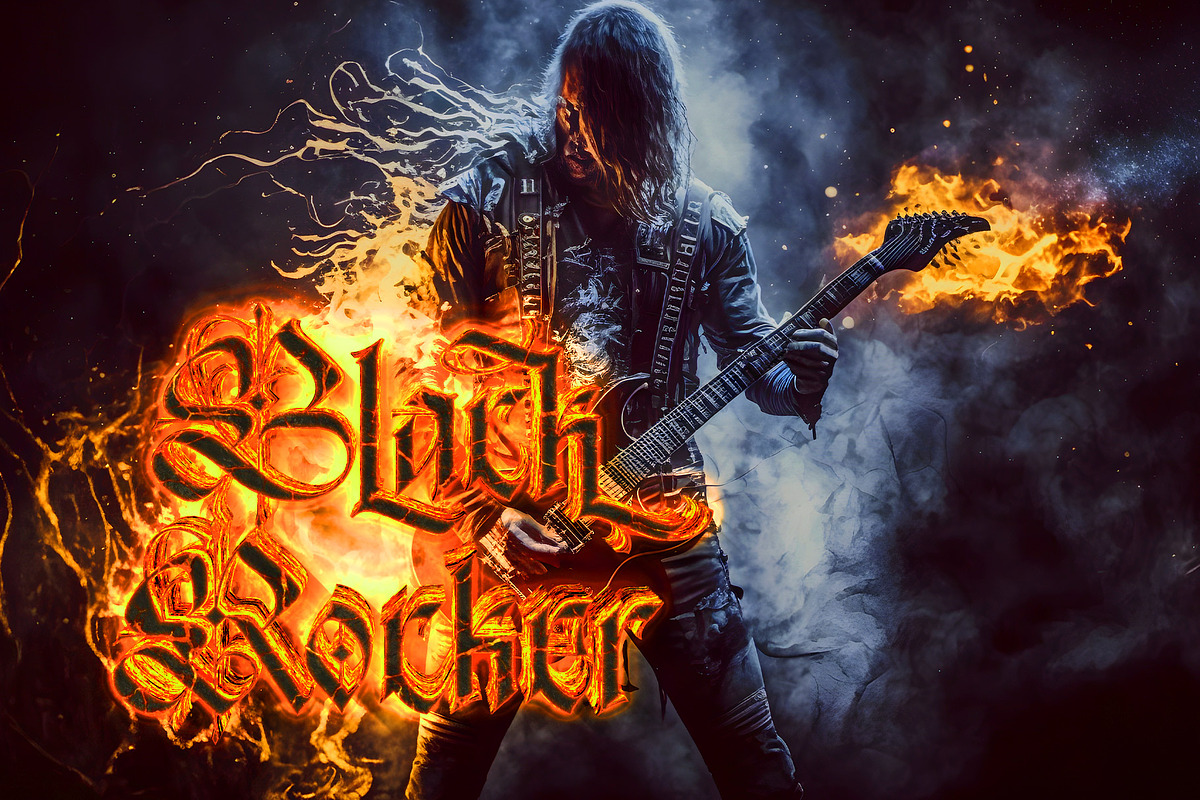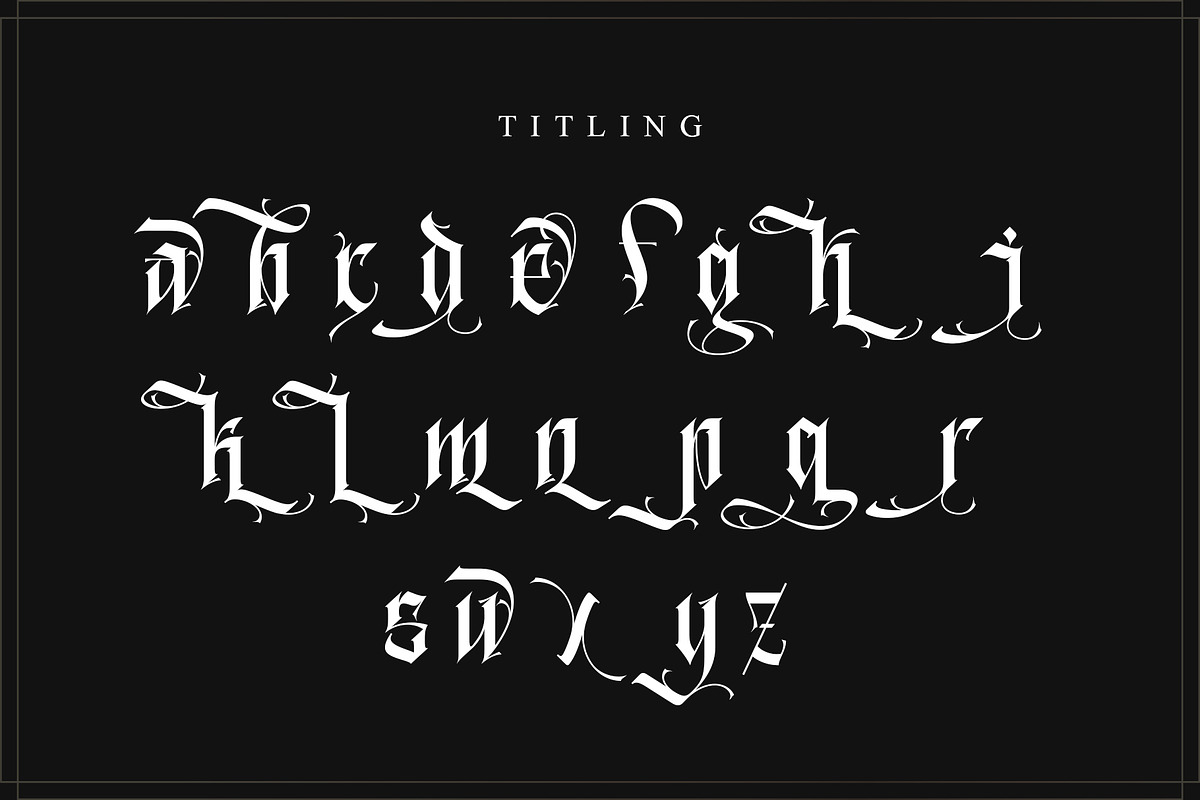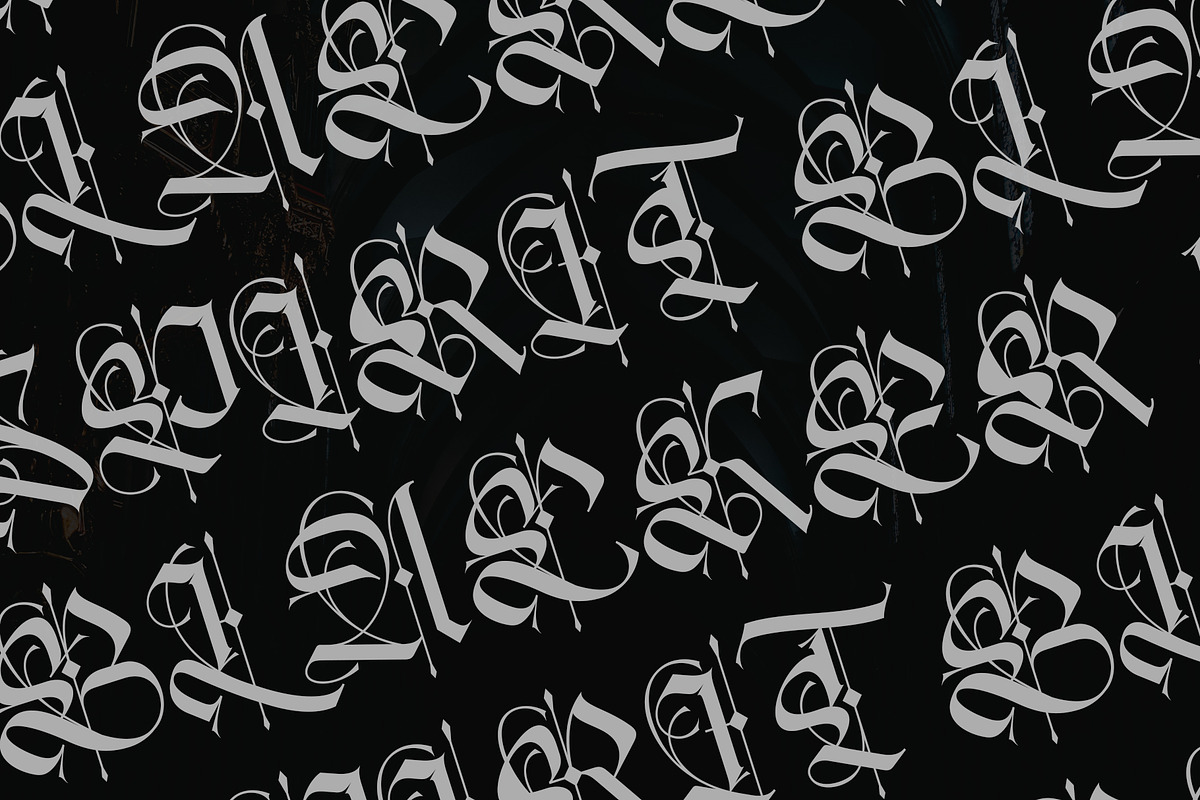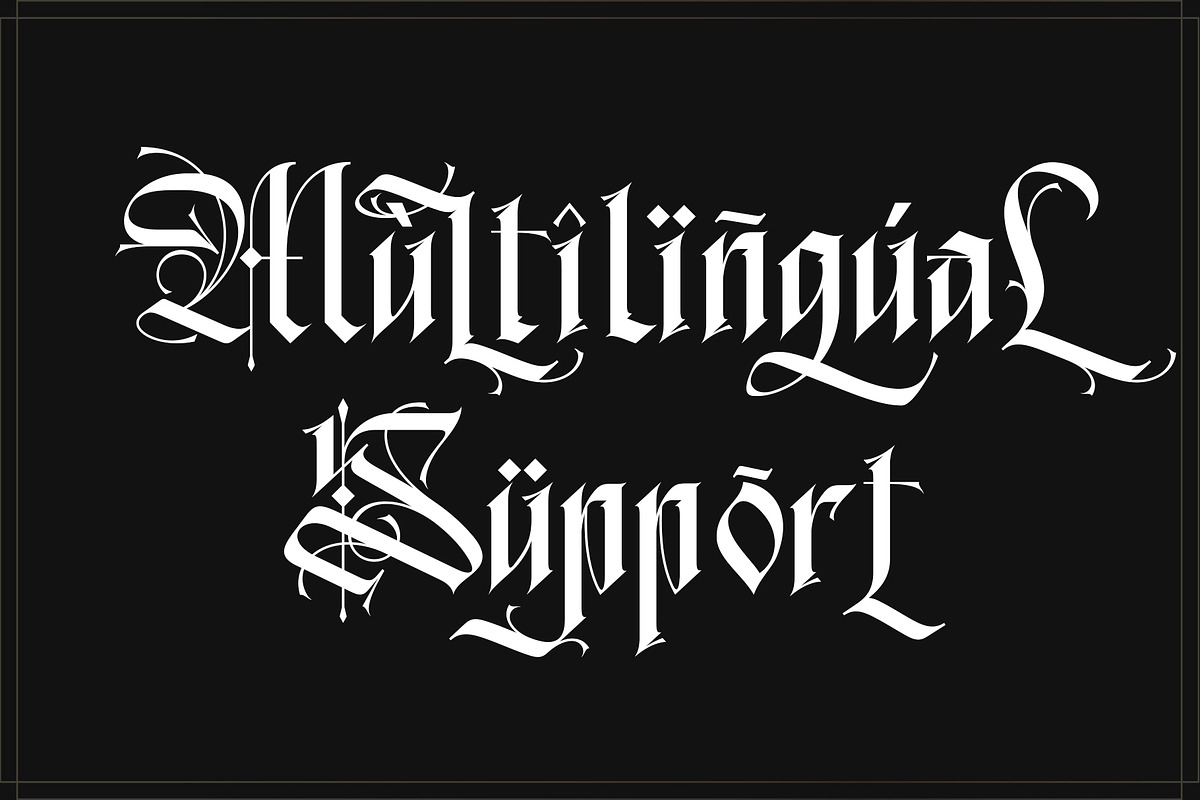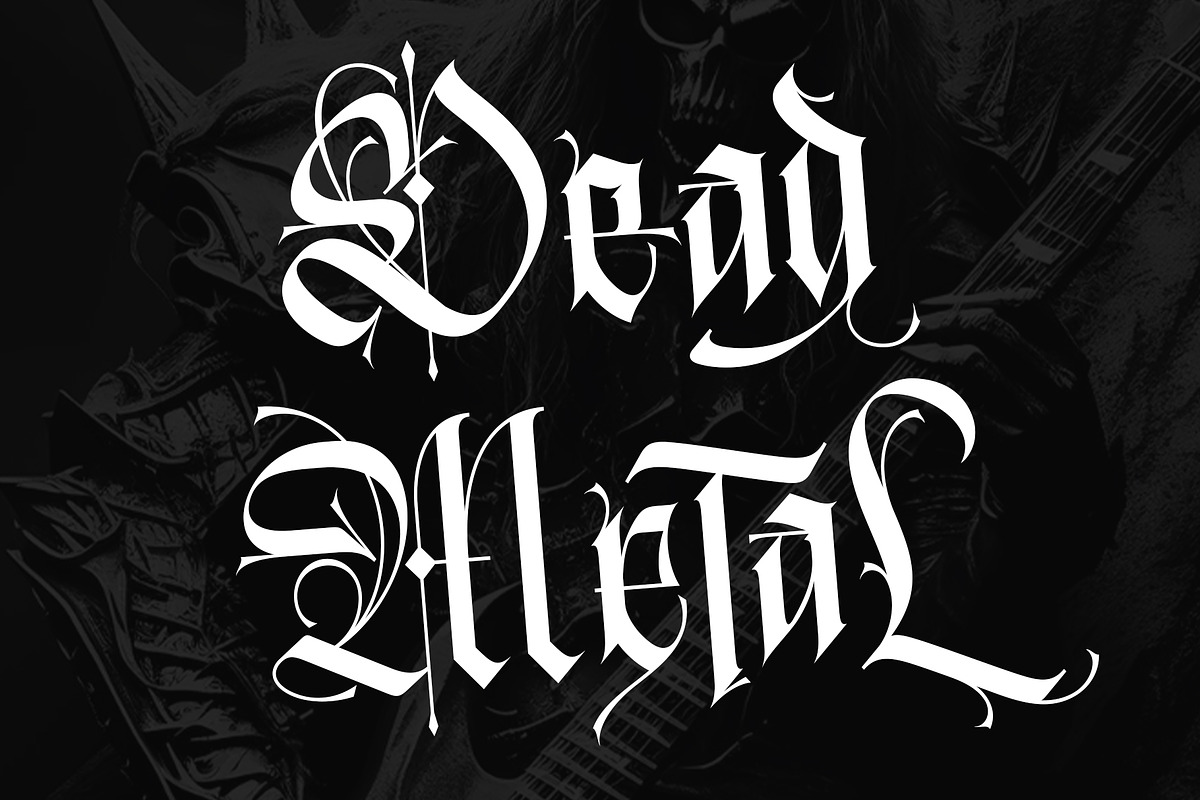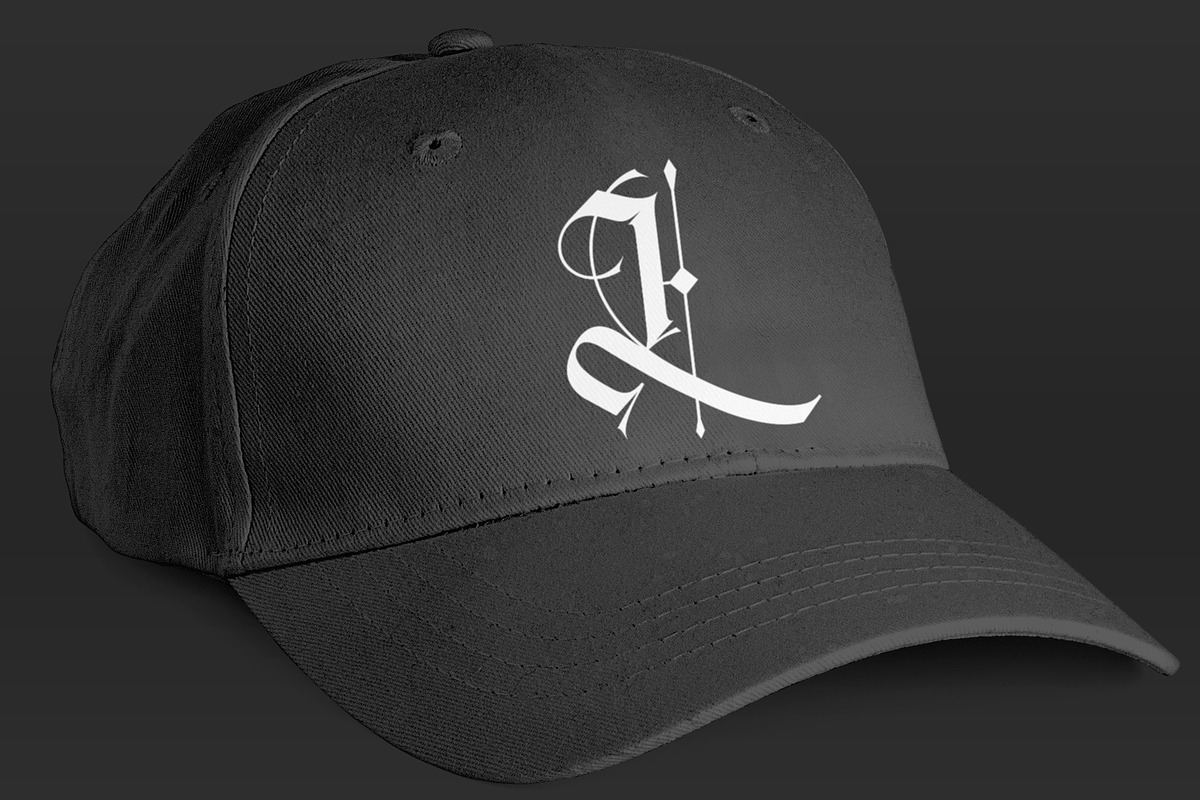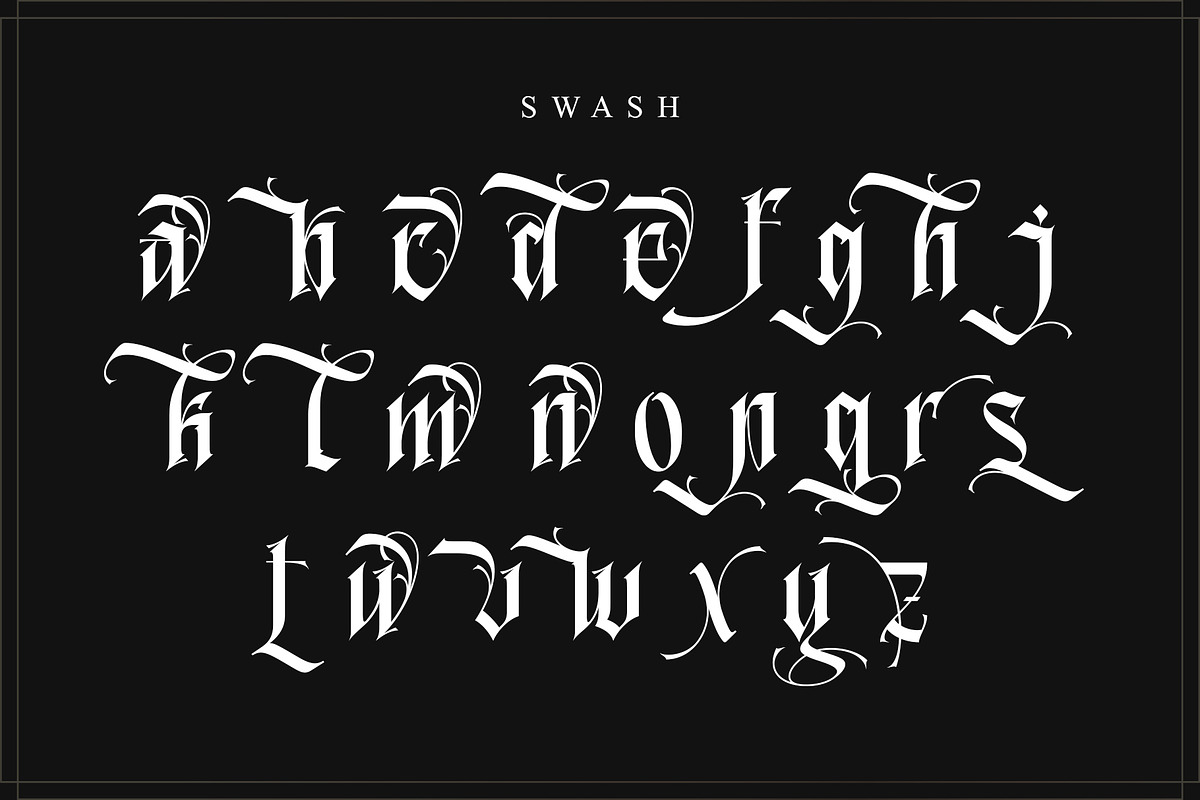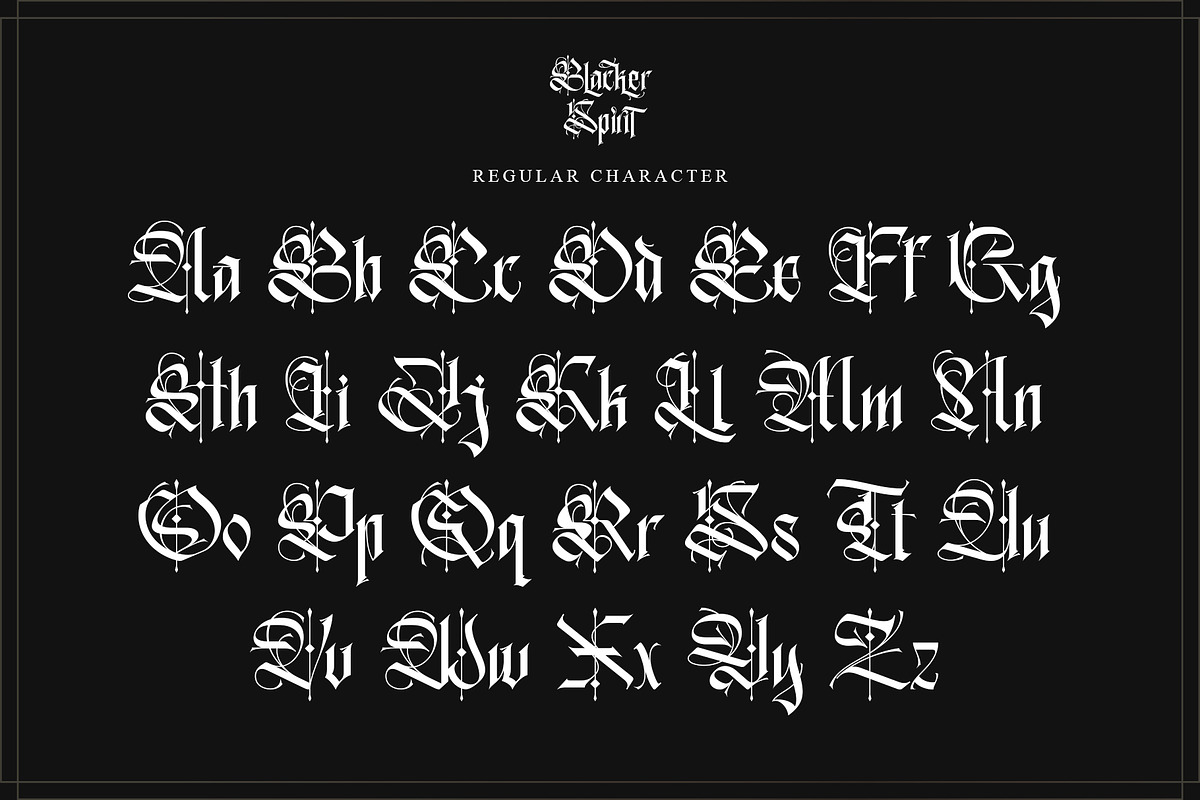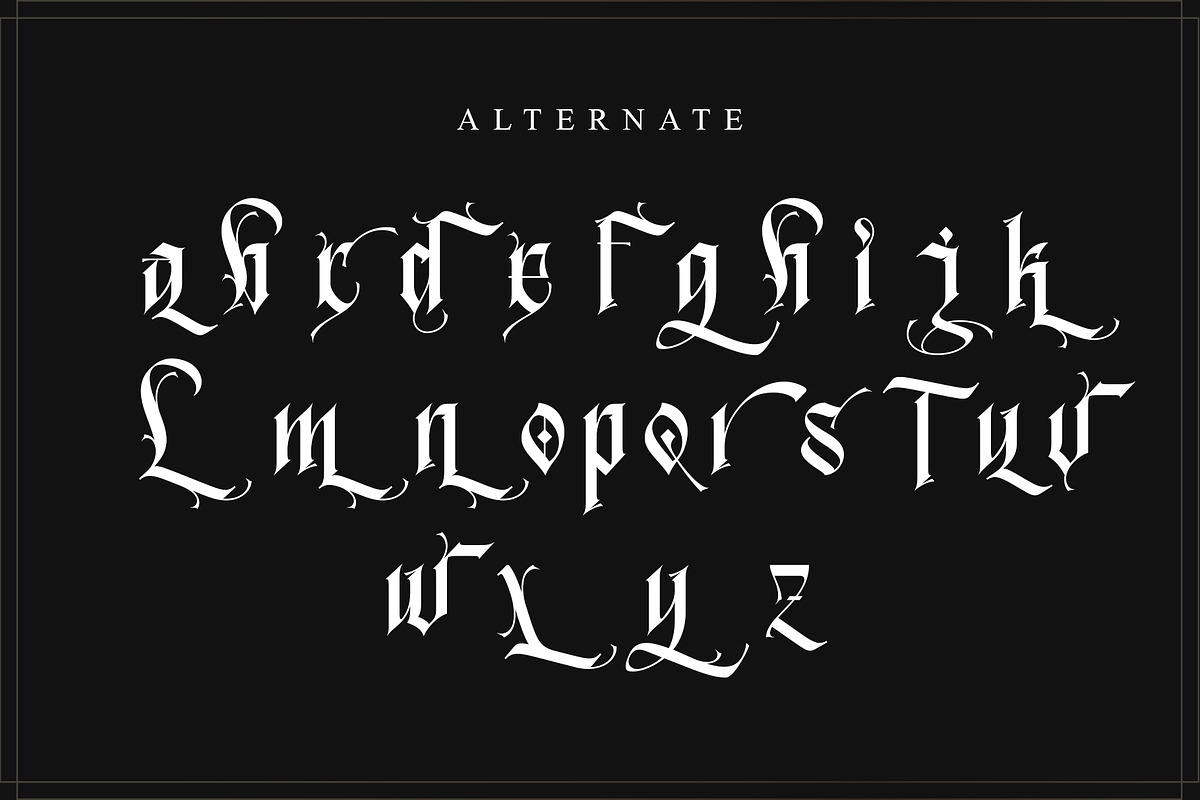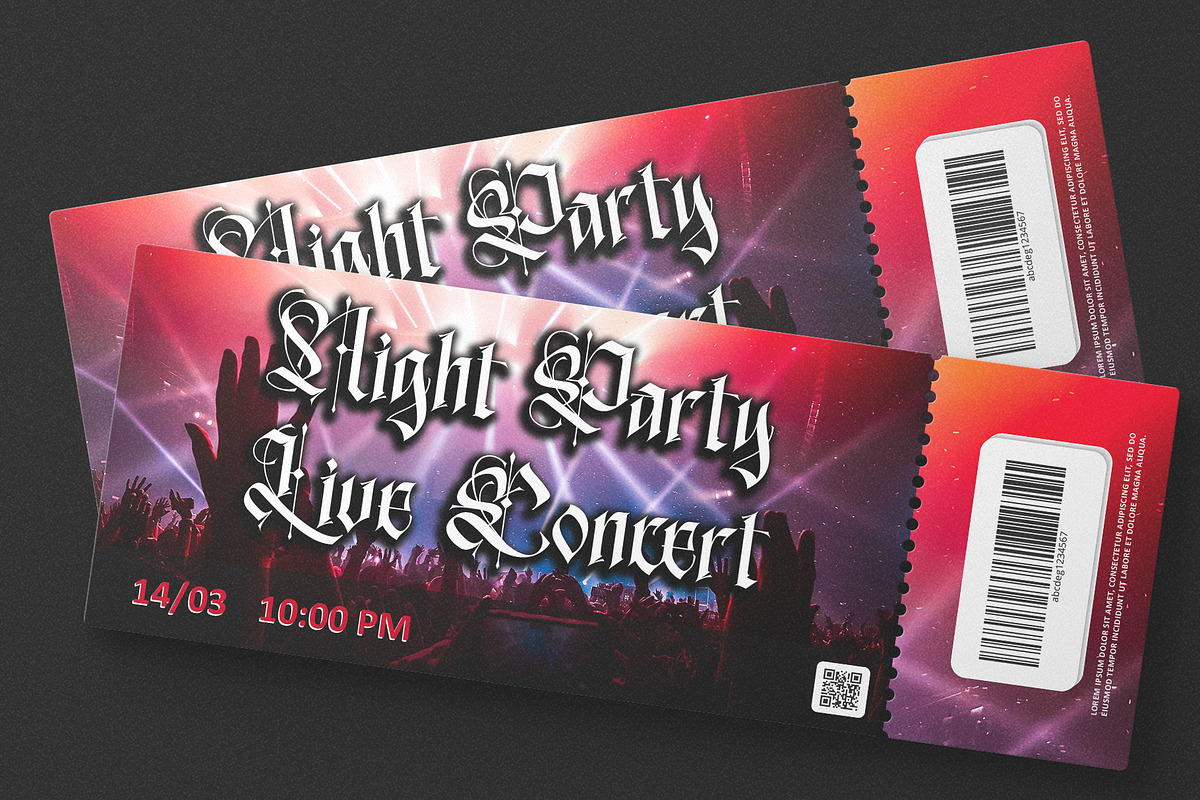
Blacker Spirit
Blacker Spirit, a captivating blackletter typeface, combines bold elegance with distinctive character forms, ideal for elevating diverse design projects like product packaging, branding, and more. Its PUA encoding ensures effortless access to all the unique glyphs and swashes, promising remarkable results for your creative ventures.
- Support multilingual; ä ö ü Ä Ö Ü ß ¿ ¡
- lowercase and uppercase letters
- Alternate, swash, titling, ss01, ss02, & ligature